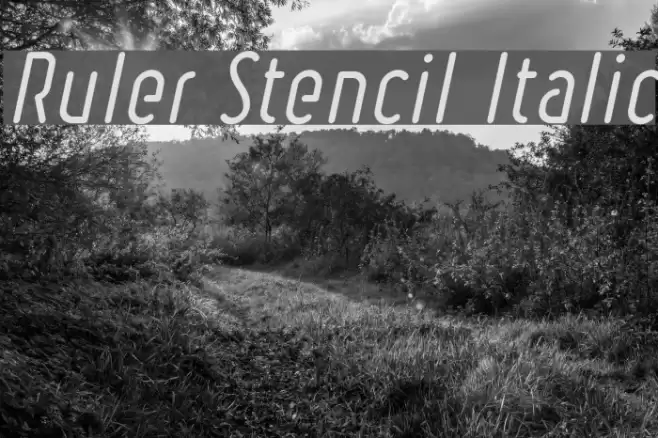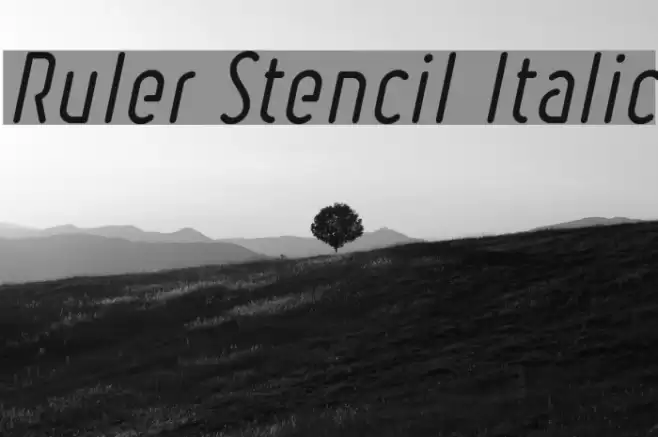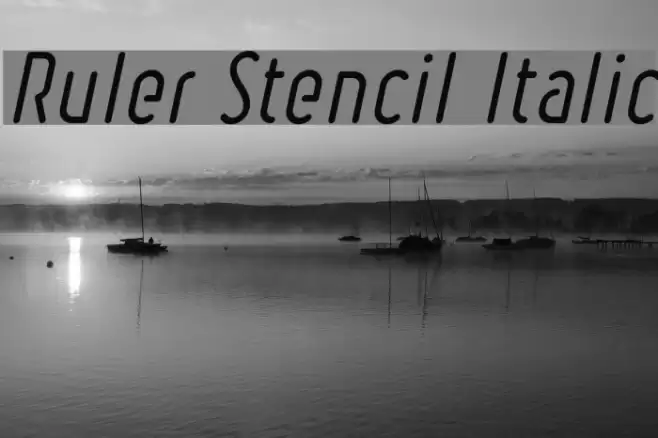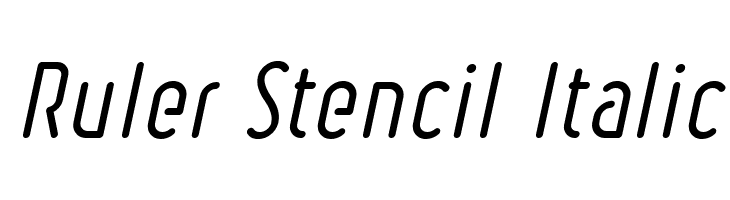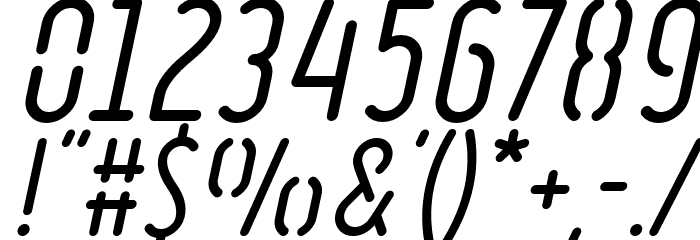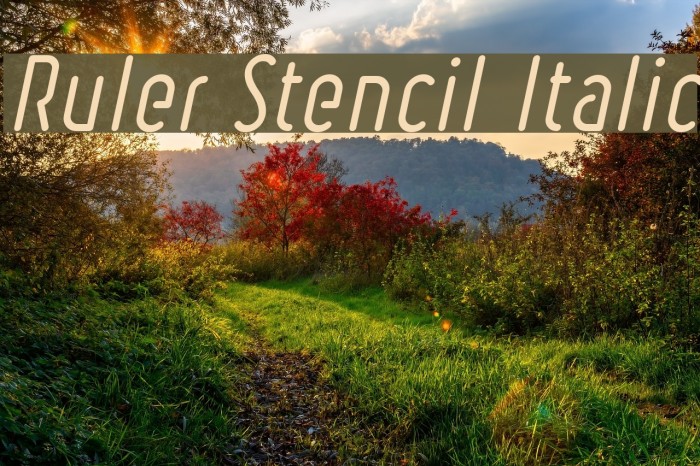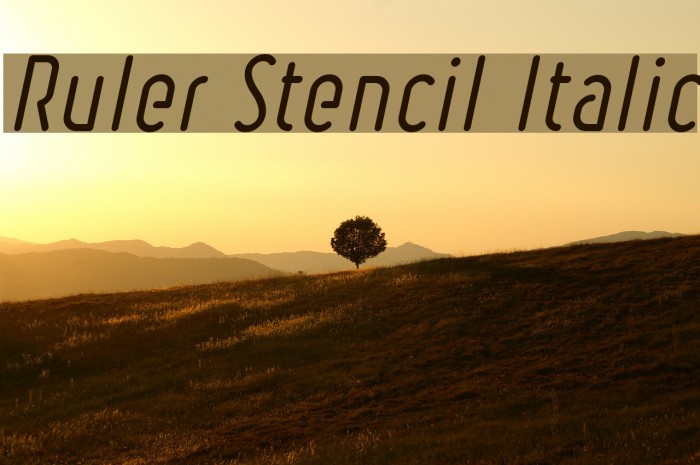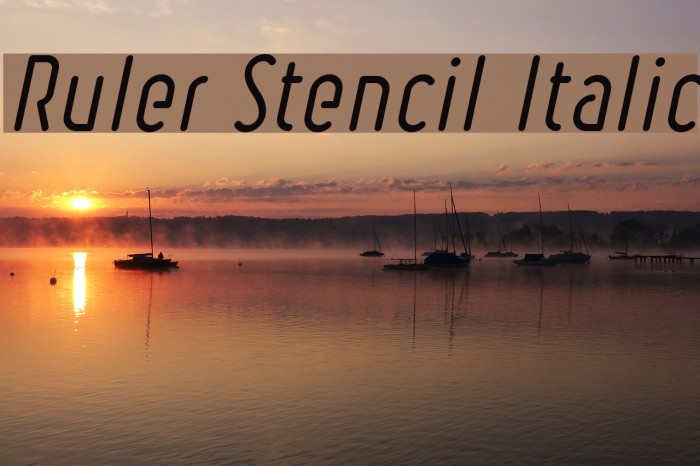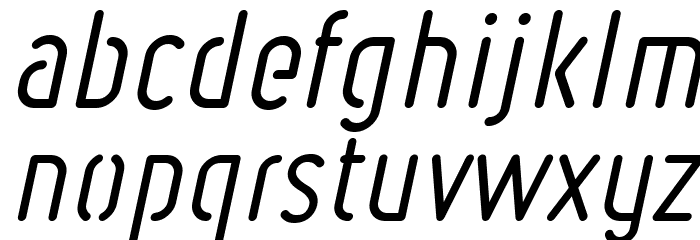
Ruler Stencil Italic Font
Ruler Stencil Italic Description
This font features a distinct stencil design with an italic slant, giving it a dynamic and modern appearance. The characters are constructed with clean, geometric lines and rounded edges, creating a sense of movement and fluidity. The stencil gaps are strategically placed, ensuring legibility while maintaining the unique aesthetic. The uppercase and lowercase letters are consistent in style, with numerals and special characters following the same design principles. This font's sleek and contemporary look makes it suitable for various creative applications.
A modern stencil font with an italic slant and geometric design from Uncategorized fonts.
- Proposed Projects: Ideal for branding, packaging, posters, and modern editorial design.